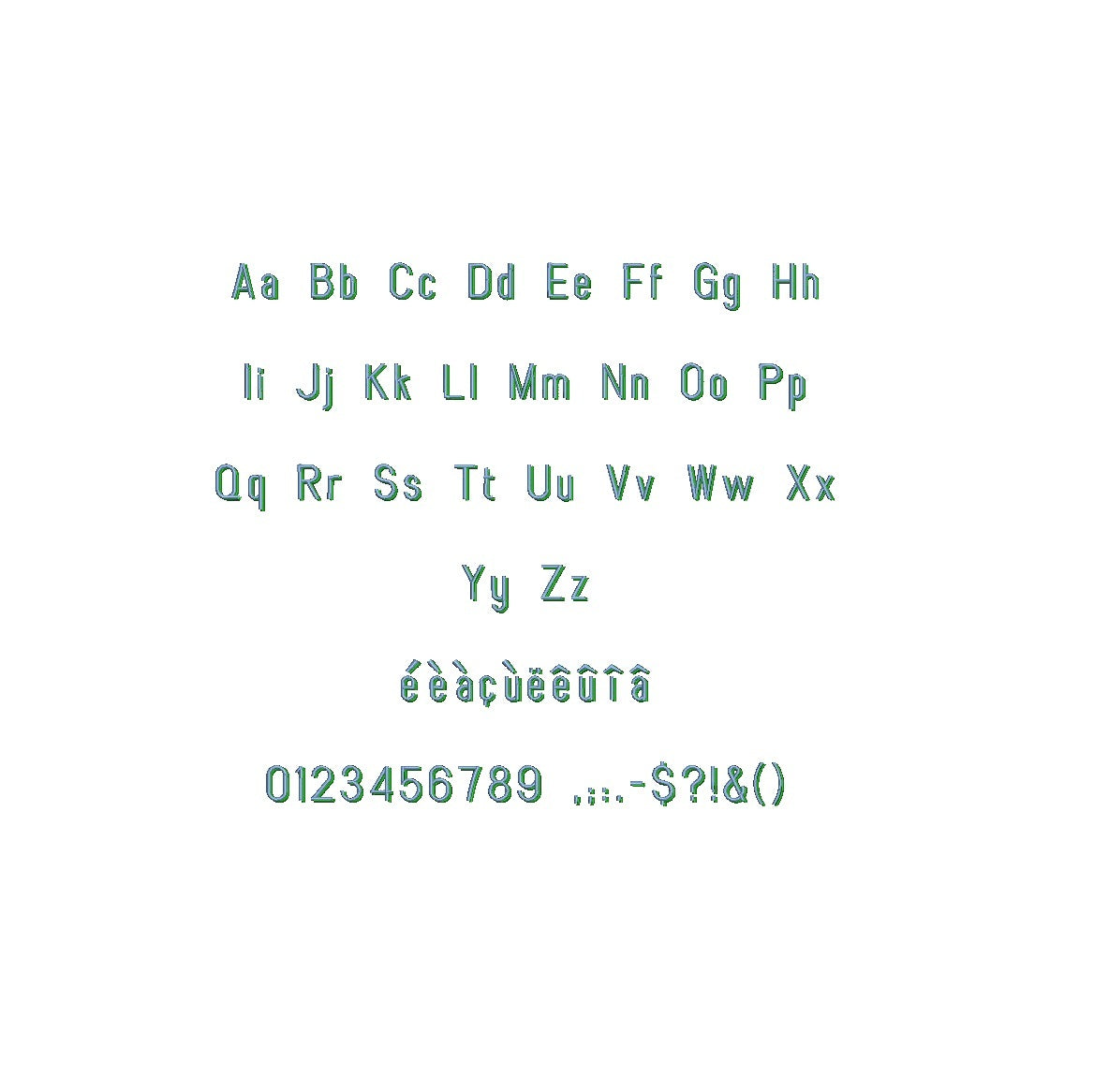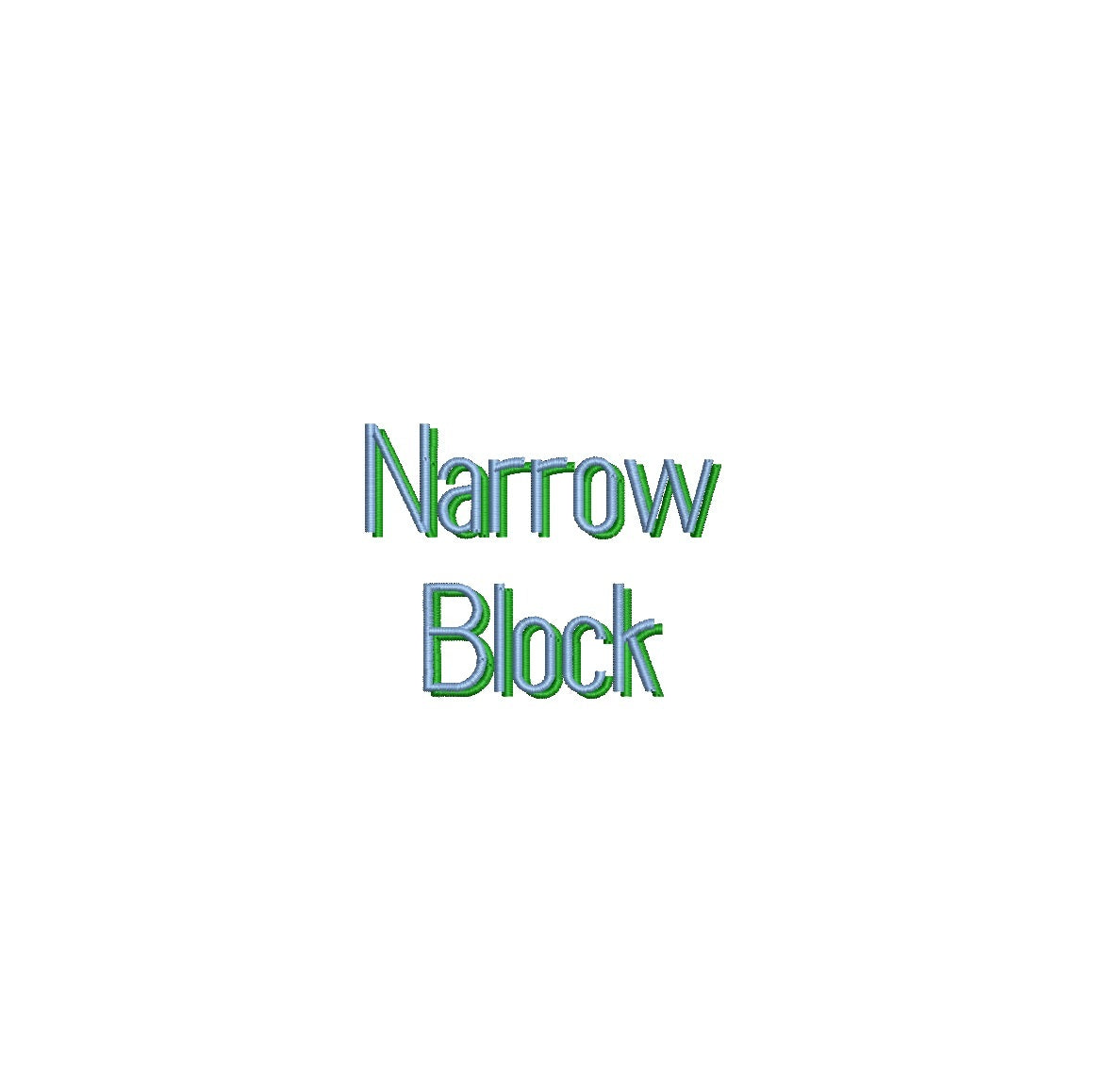
Introducing the Narrow Block Shadow ESA font – your go-to choice for impeccable embroidery designs. Compatible with Wilcom Studio e4.5.6 and Hatch 3 versions and newer, this font effortlessly blends style and functionality. Elevate your projects with crisp, sleek lettering that stands out. Crafted for narrow layouts, its captivating shadow effect adds depth and dimension. Perfect for monograms, text-based designs, and more. Unlock a world of creativity with easy integration and stunning results. Choose Narrow Block Shadow ESA font for seamless compatibility and striking embroidery that leaves a lasting impression. Elevate your embroidery game today!